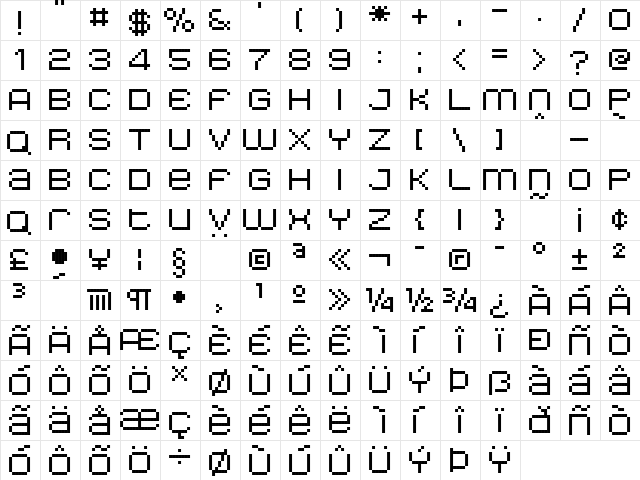
Balderas Px Regular
Design Context for Balderas Px Typeface
Balderas Px offers clean, dependable letterforms without strong stylistic allegiance, making it a practical choice for designers who need flexibility.
Pro Tip: Use Balderas Px in both headline and body roles to test its range before committing to a single application.